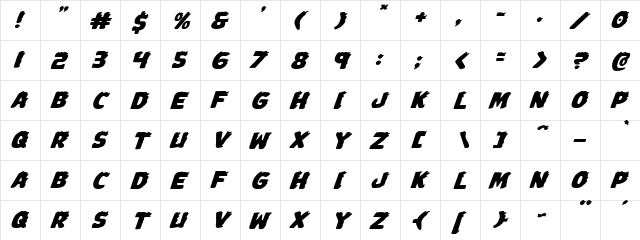
Johnny Torch Expanded Italic Expanded Italic
Design Context for Johnny Torch Expanded Italic Typeface
Johnny Torch Expanded Italic is a composed and adaptable typeface that performs quietly and consistently across a wide range of design contexts. The dynamic lean of this cut emphasises speed and emphasis in any layout.
Pro Tip: Use Johnny Torch Expanded Italic for emphasis, pull quotes, and subheadings where its slanted energy can add rhythm to the layout.